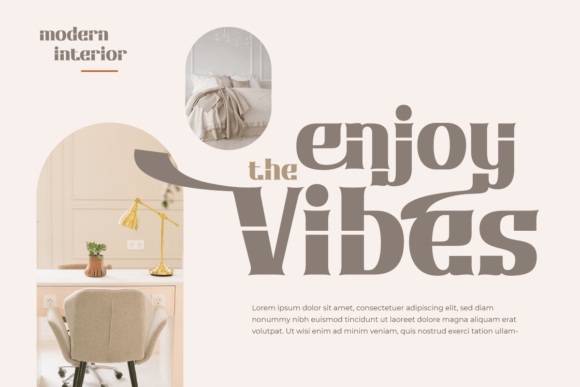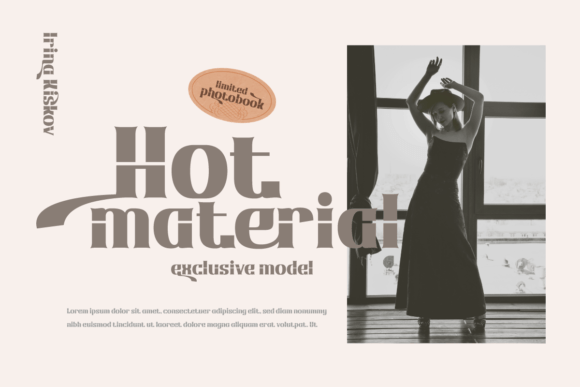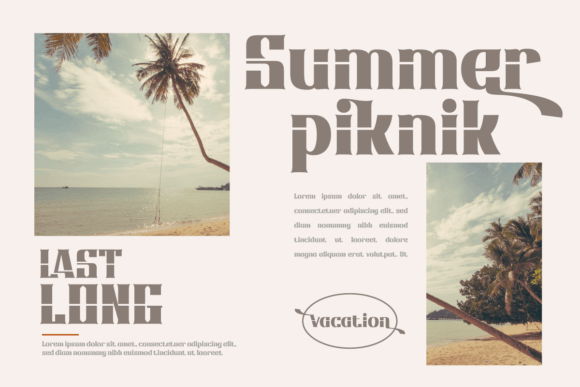
Introduction to Qonihy Font
Qonihy is a modern serif typeface that is ideal for projects that require a classic yet contemporary look.
Its characteristics allow you to express your creativity Every character in Qonihy is meticulously designed, with precise and elegant lines that give the impression of luxury and professionalism.
Why Choose Qonihy Font?
Qonihy Font offers exceptional quality and versatility, making it a valuable addition to your design toolkit. Whether you’re creating for personal projects or commercial use, Qonihy Font delivers professional results.